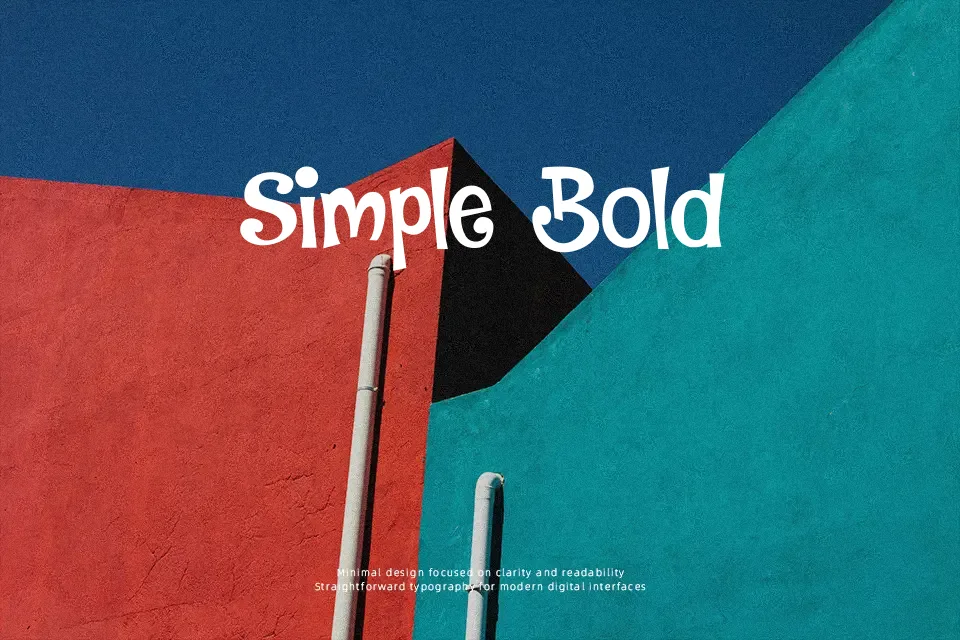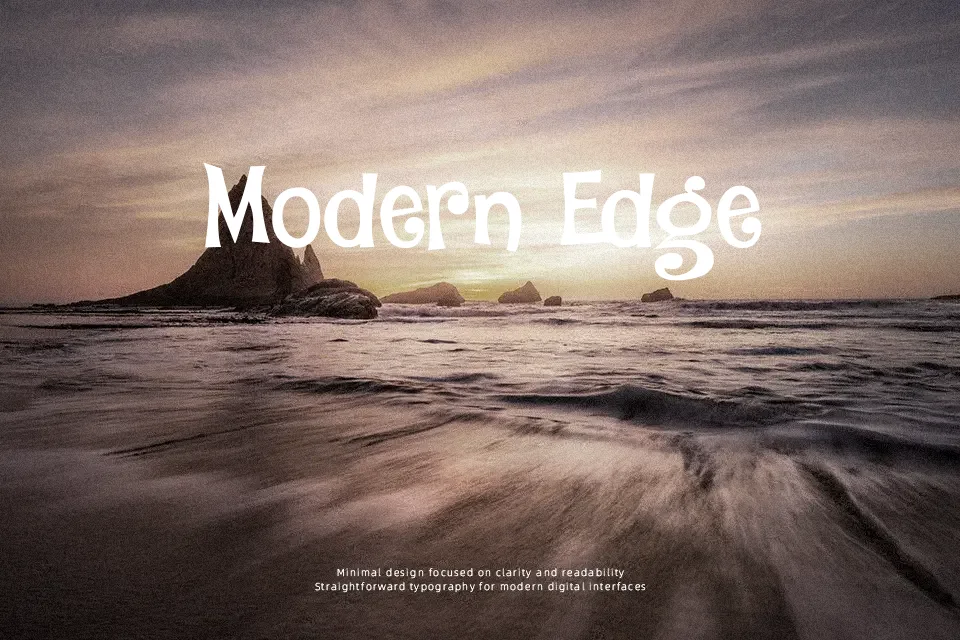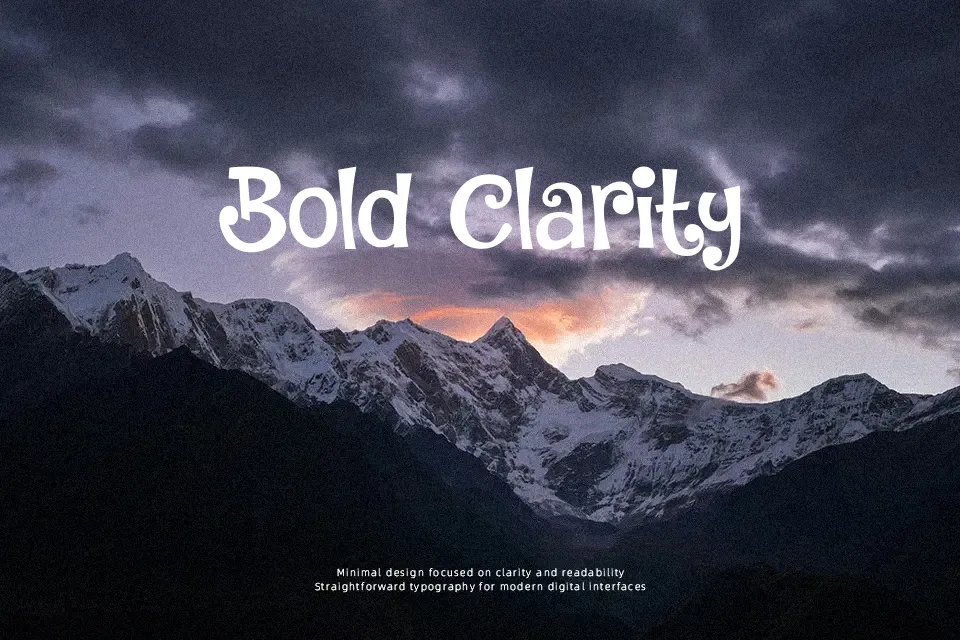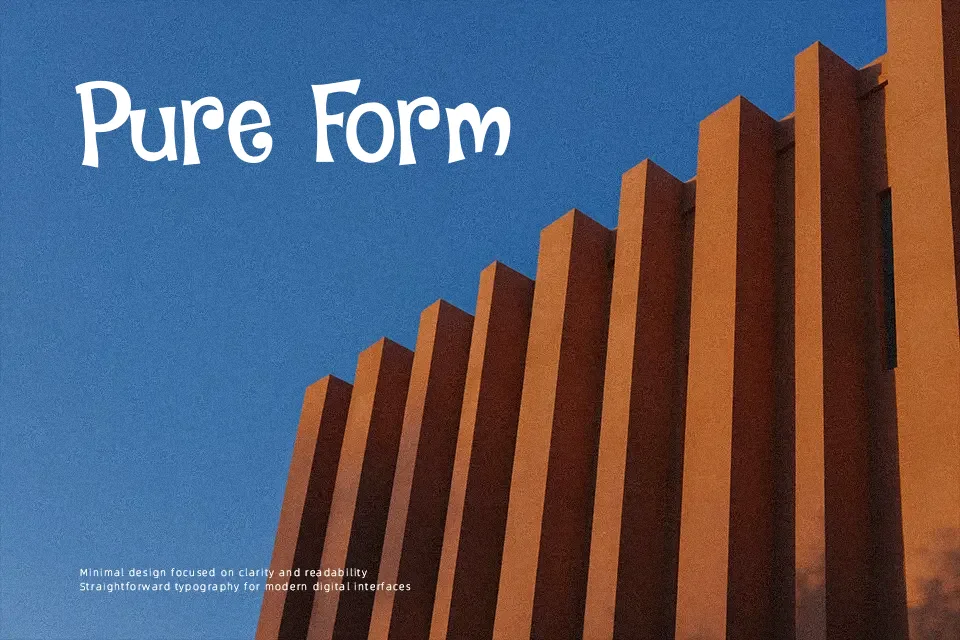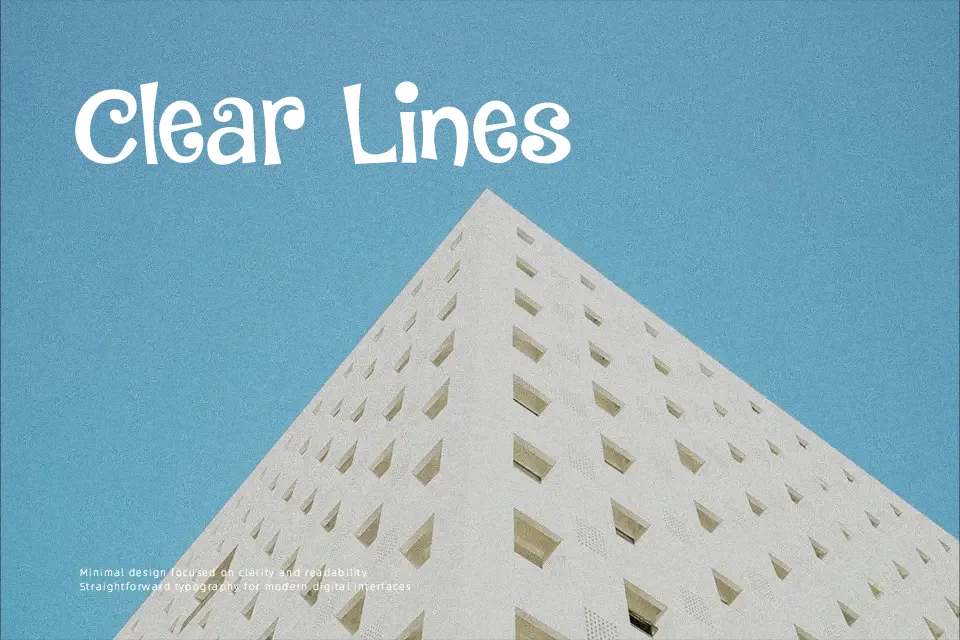
DK Jambo Font
Designed by Hanoded
DK Jambo leans into a bouncy curly display look, with heavy strokes, rounded inner shapes, and looping terminals that make each word feel animated rather than orderly. The spacing is fairly open for a decorative face, which helps short titles stay readable even as the letters twist and dip. It suits birthday posters, cheerful packaging, classroom materials, and event invitations that need a friendly, slightly mischievous tone. I would not use it for formal branding, dense editorial work, or small labels, because the exaggerated curves start to tangle visually when the text gets longer or tighter.
kids party posters, playful product packaging, classroom event invitations, short themed headlines
body text, formal corporate branding, dense editorial layouts, small interface labels
Perfect for headline, invitation, and kids, with a creative and cartoon style.